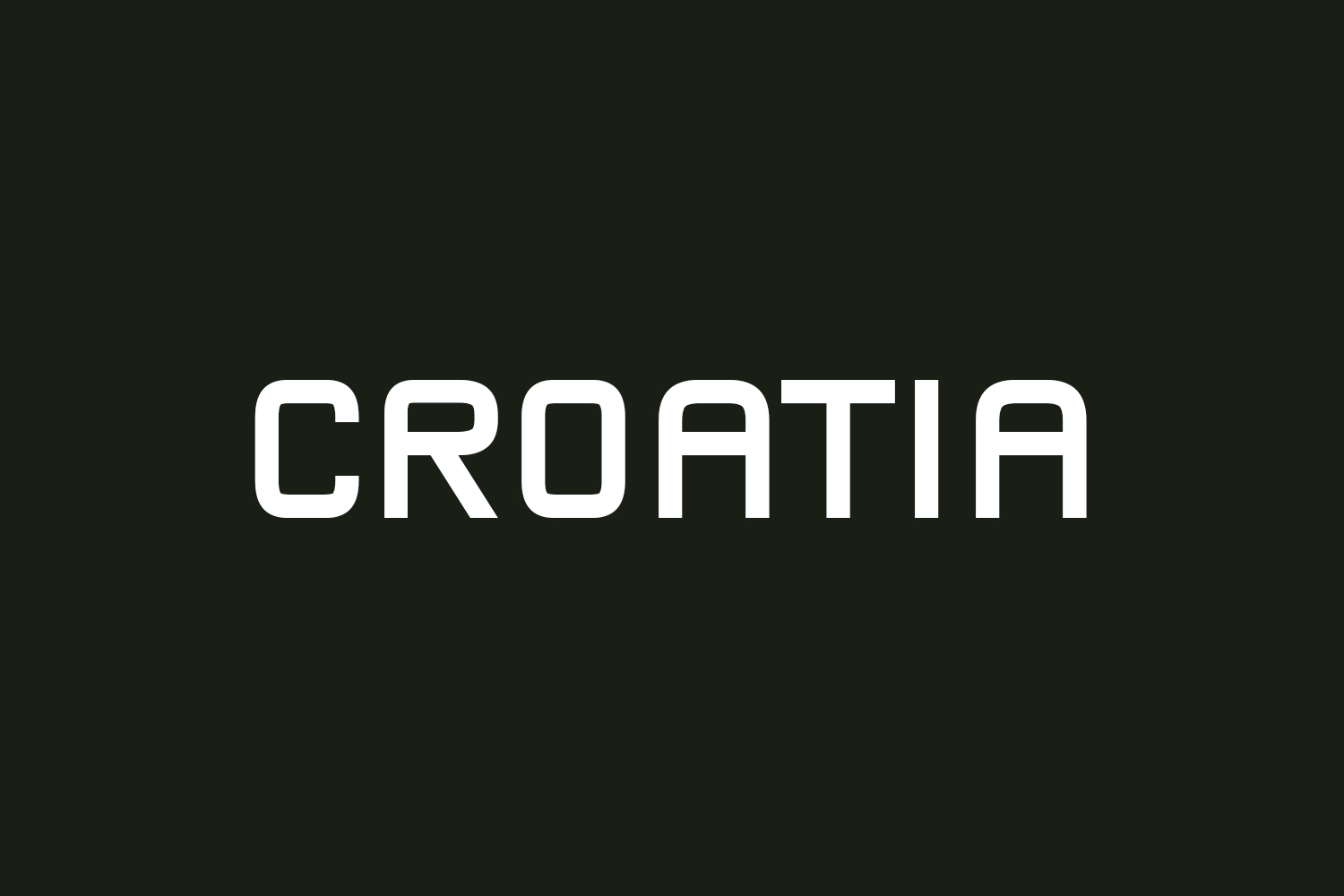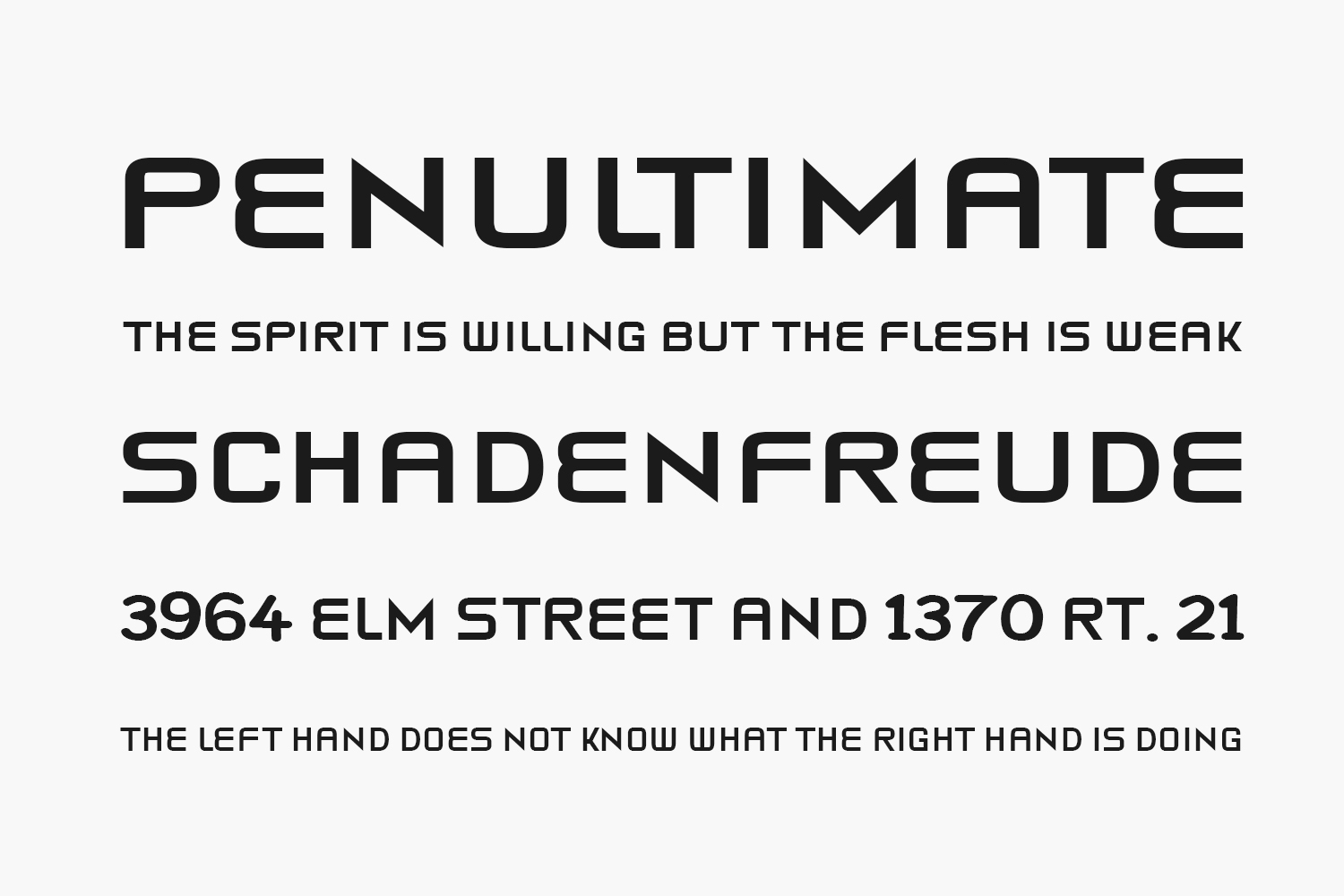
Discover Croatia Free Font, a captivating display font perfect for all your projects. Elevate your designs with this contemporary typeface, ideal for shirts, posters, and banners. Download the font for free if you need it for personal use or purchase the full version for commercial use.
Designed by Vladimir Nikolic